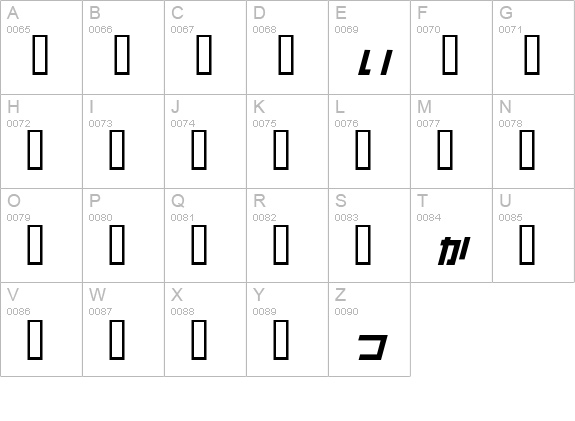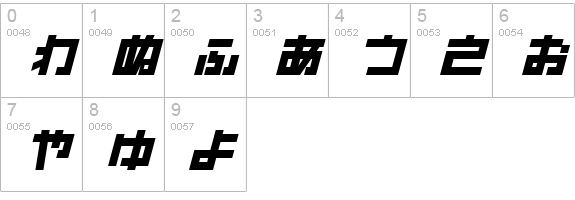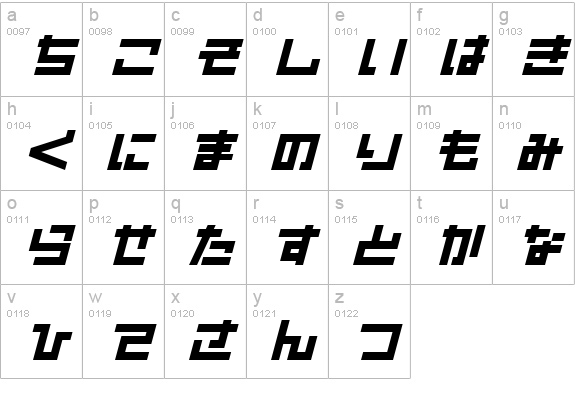
I2sunplaza Font Details
Introducing the magnificent I2sunplaza font - a true masterpiece in the world of typography. With its captivating design and charming elegance, this font is sure to elevate any project to new heights of creativity and professionalism. I2sunplaza font effortlessly combines modern and traditional elements, resulting in a harmonious blend that is both timeless and contemporary. Its clean lines and well-defined curves create a sense of fluidity and sophistication, making it the perfect choice for a wide range of design purposes. This versatile font is not only visually stunning but also incredibly functional. Its legibility ensures that every word is effortlessly understood, even at smaller sizes. This makes I2sunplaza font ideal for a variety of applications, including logos, branding, headlines, posters, packaging, and much more. One of the most exciting aspects of I2sunplaza font is that it is freely available to download at FontsMarket.com. This means that you can enhance your creative projects without any extra costs. Whether you are a professional designer, a student, or an enthusiast, this font provides a world of possibilities at your fingertips. The I2sunplaza font is designed with meticulous attention to detail, ensuring the highest quality in every character. Each letter is carefully crafted to deliver a unique and memorable visual experience. The font's extensive character set includes uppercase and lowercase letters, numerals, punctuation marks, and a variety of special characters. Embrace the beauty and versatility of I2sunplaza font and watch your designs come to life. Its ability to capture attention and evoke emotion is unparalleled, making it a truly invaluable asset in any creative endeavor. Download this extraordinary font for free at FontsMarket.com and unlock a world of endless design possibilities.